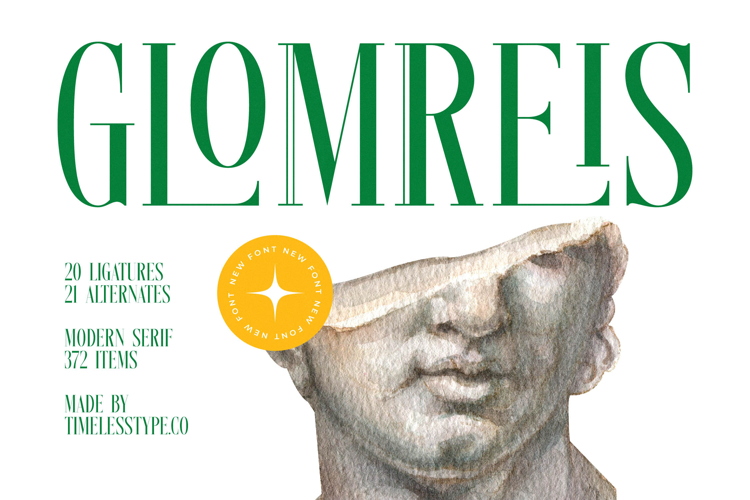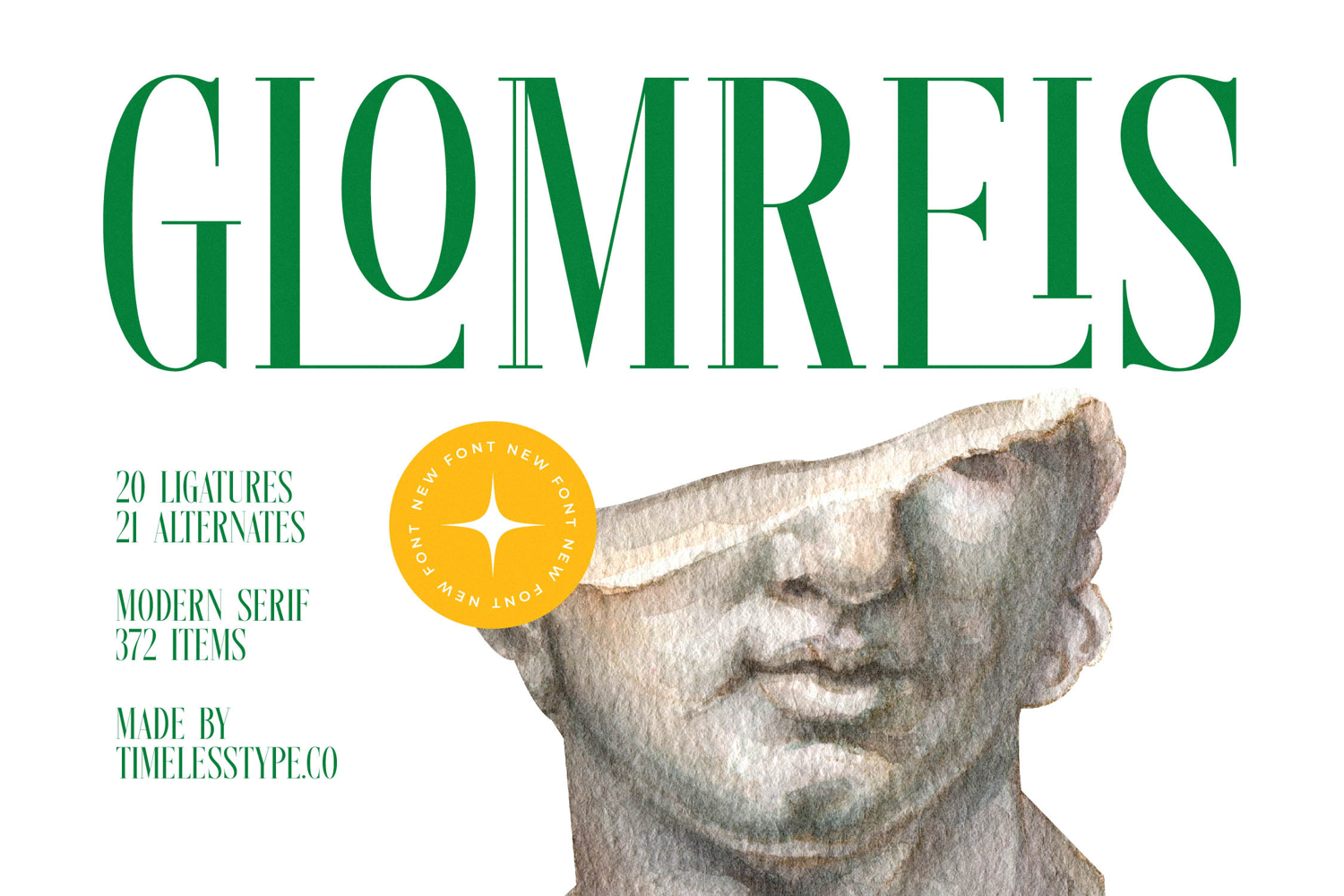
Glomreis - Modern Serif Font
Elevate your designs with Glomreis - Modern Serif Font, a typeface that effortlessly blends classic elegance with contemporary allure. This exquisite font boasts striking high-contrast strokes and refined serifs, creating a distinct visual rhythm that commands attention. Its inherent sophistication and clean lines are meticulously crafted to convey an air of upscale professionalism and timeless beauty.
Unleash unparalleled creative freedom with Glomreis - Modern Serif Font, featuring an impressive array of 20 ligatures and 21 alternates. These extensive typographic elements provide designers with the tools to craft truly unique and personalized textual compositions, ensuring your branding stands out. The detailed craftsmanship offers exceptional versatility, allowing for subtle nuances and dynamic visual expressions in any project.